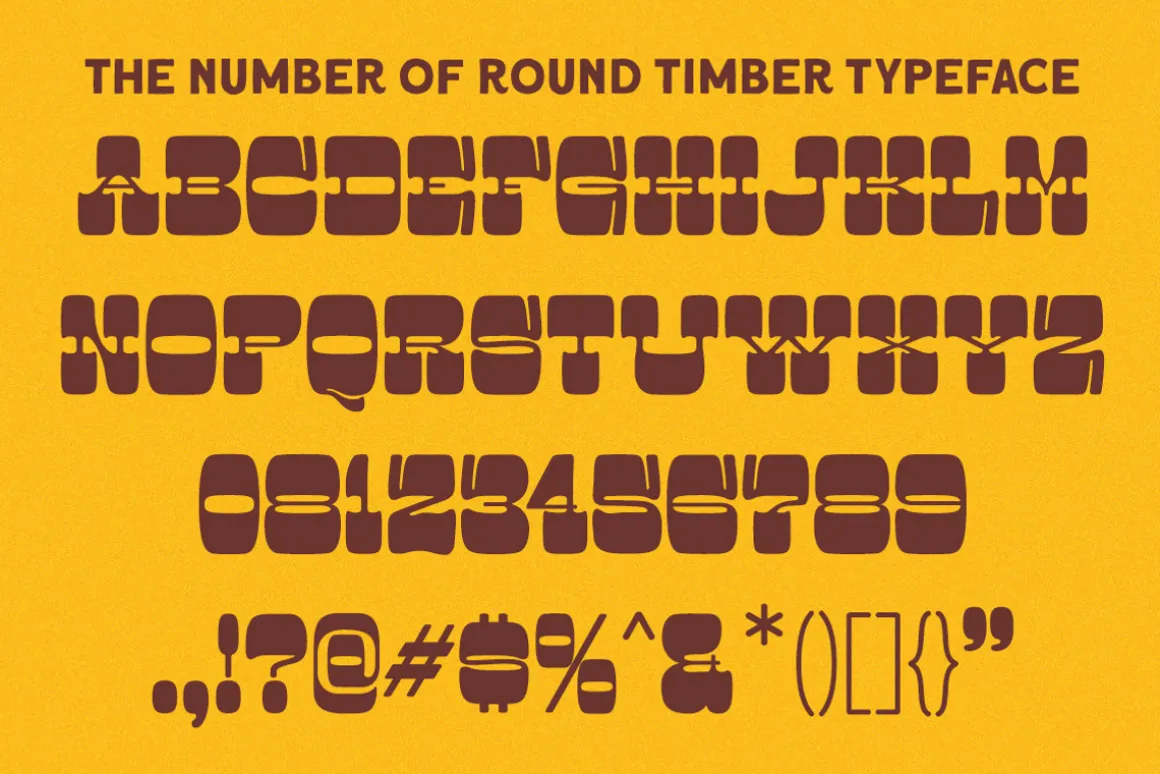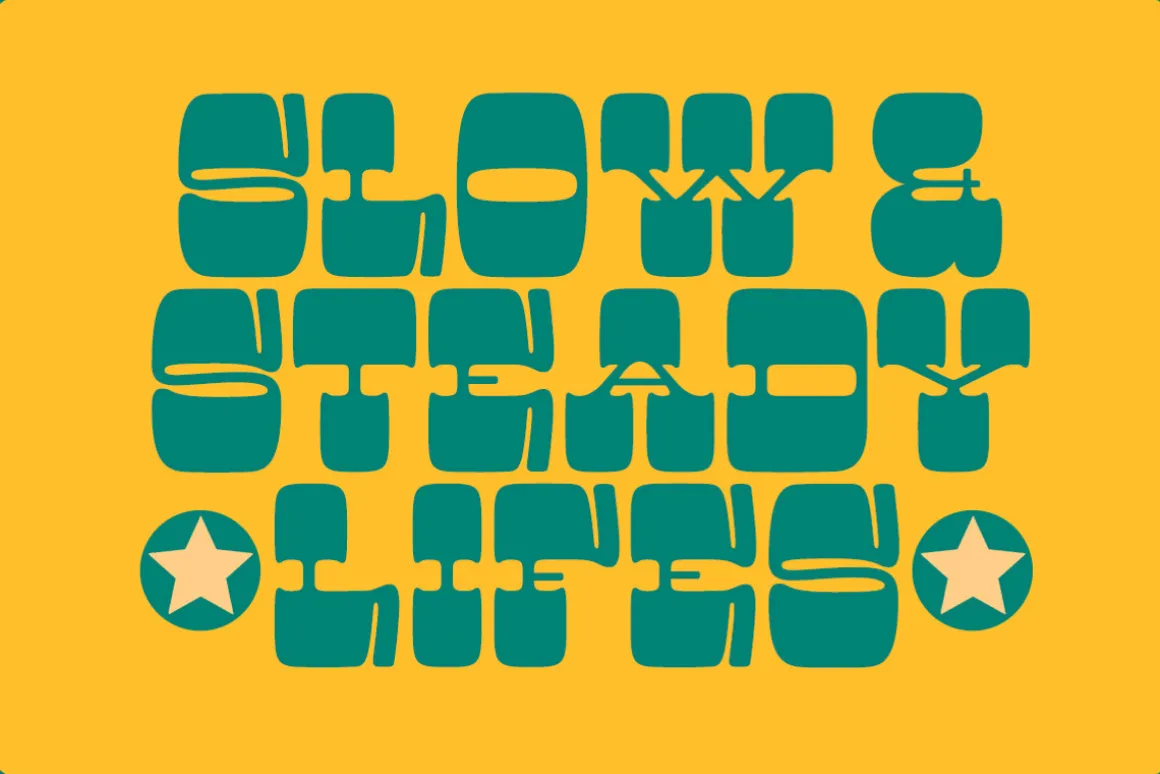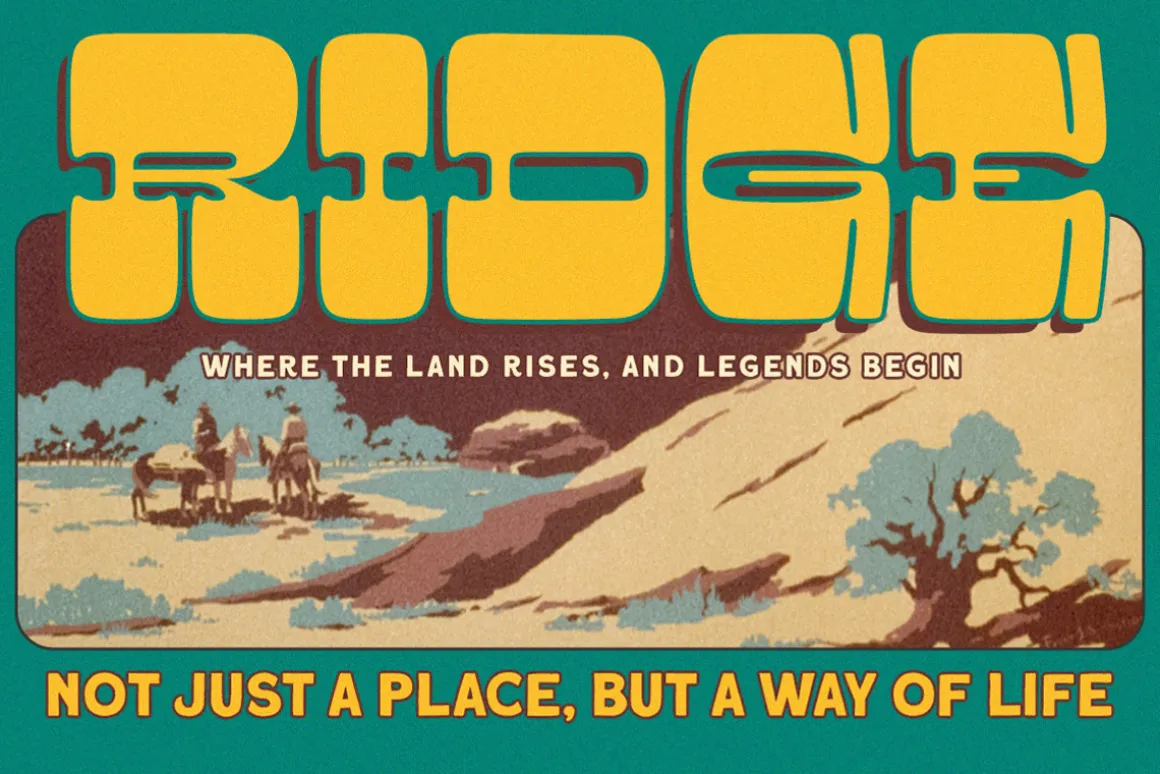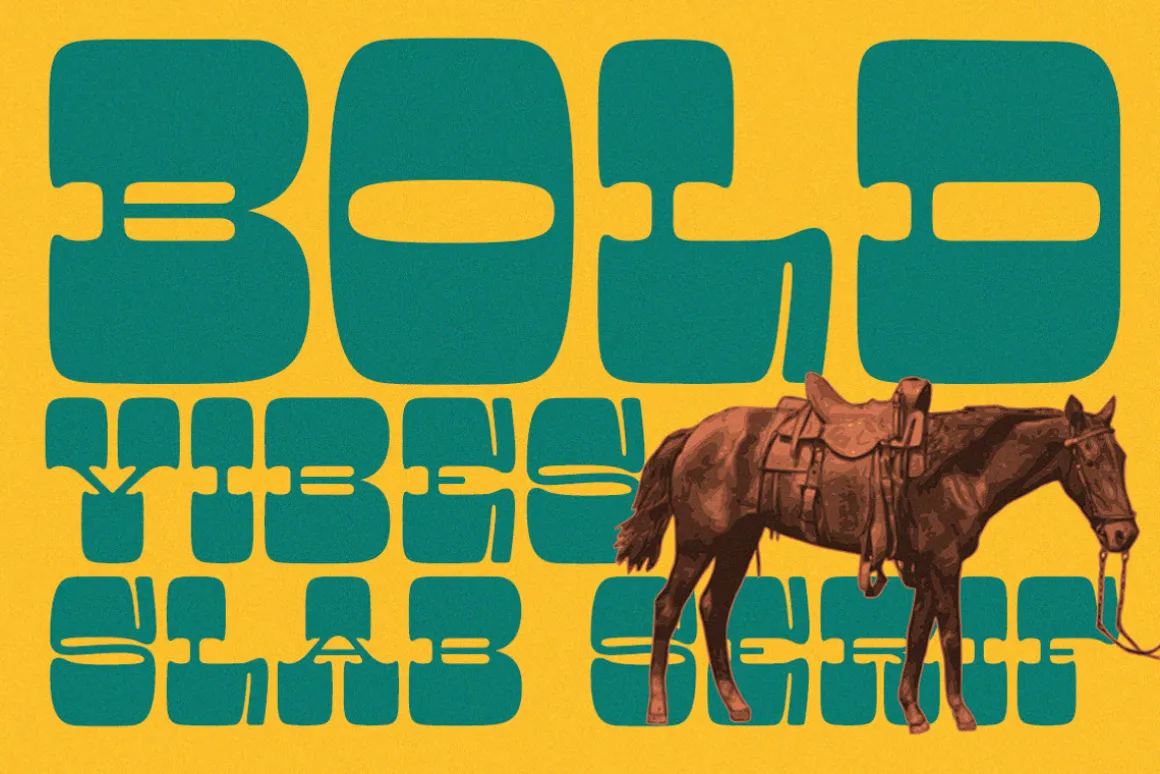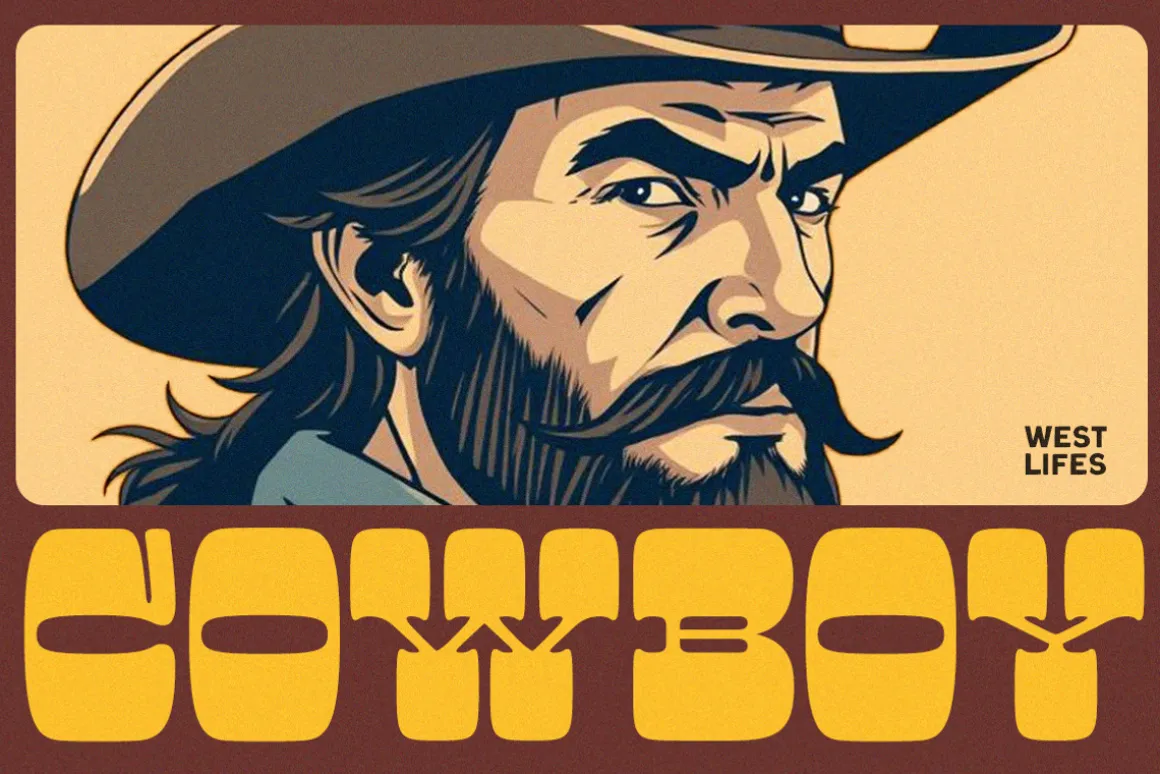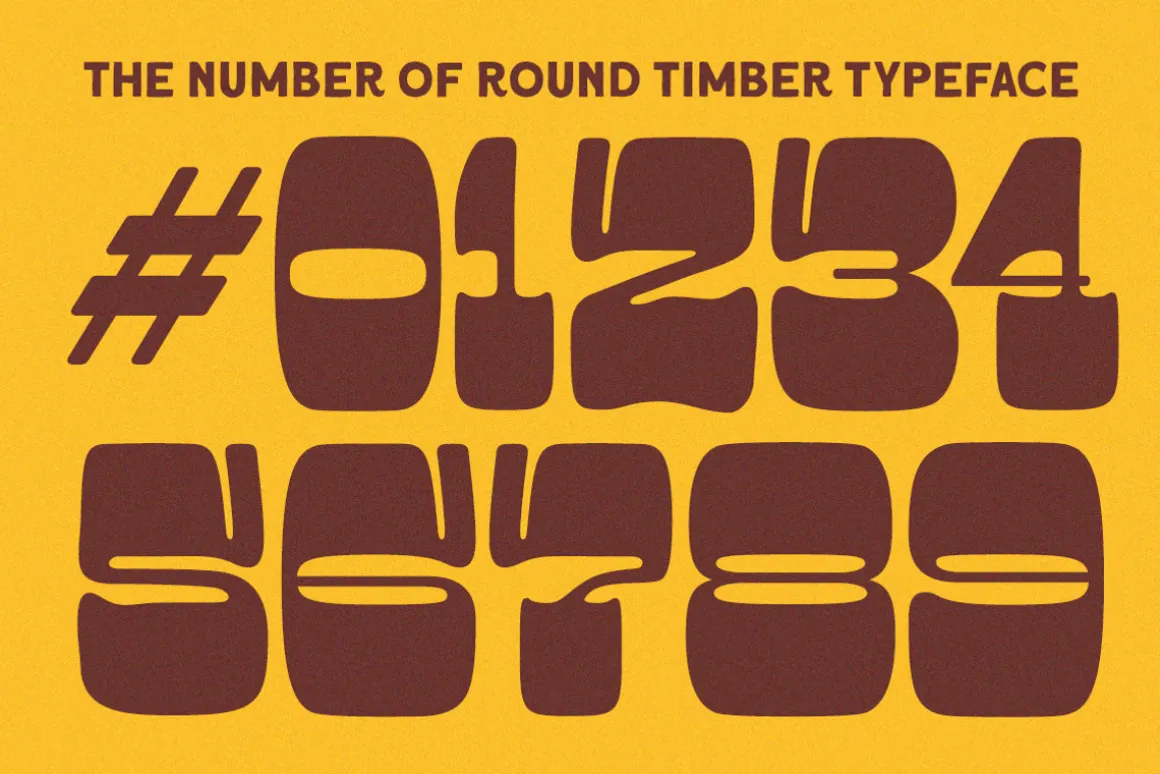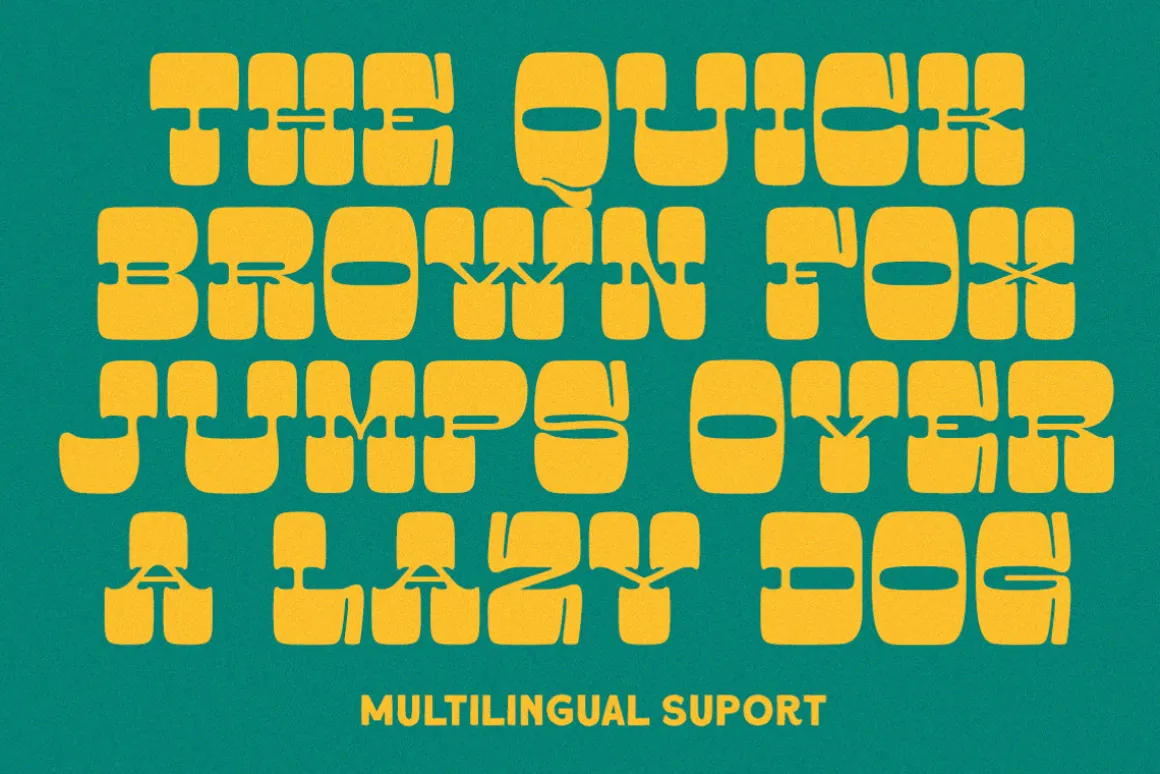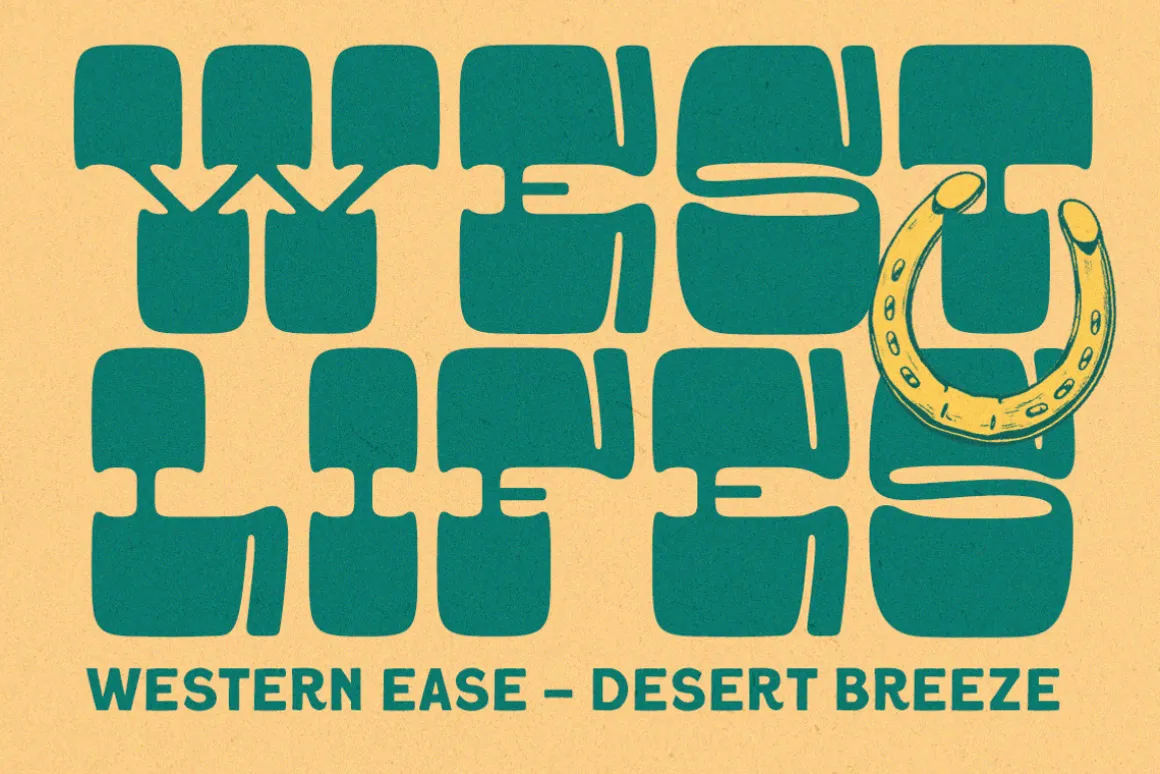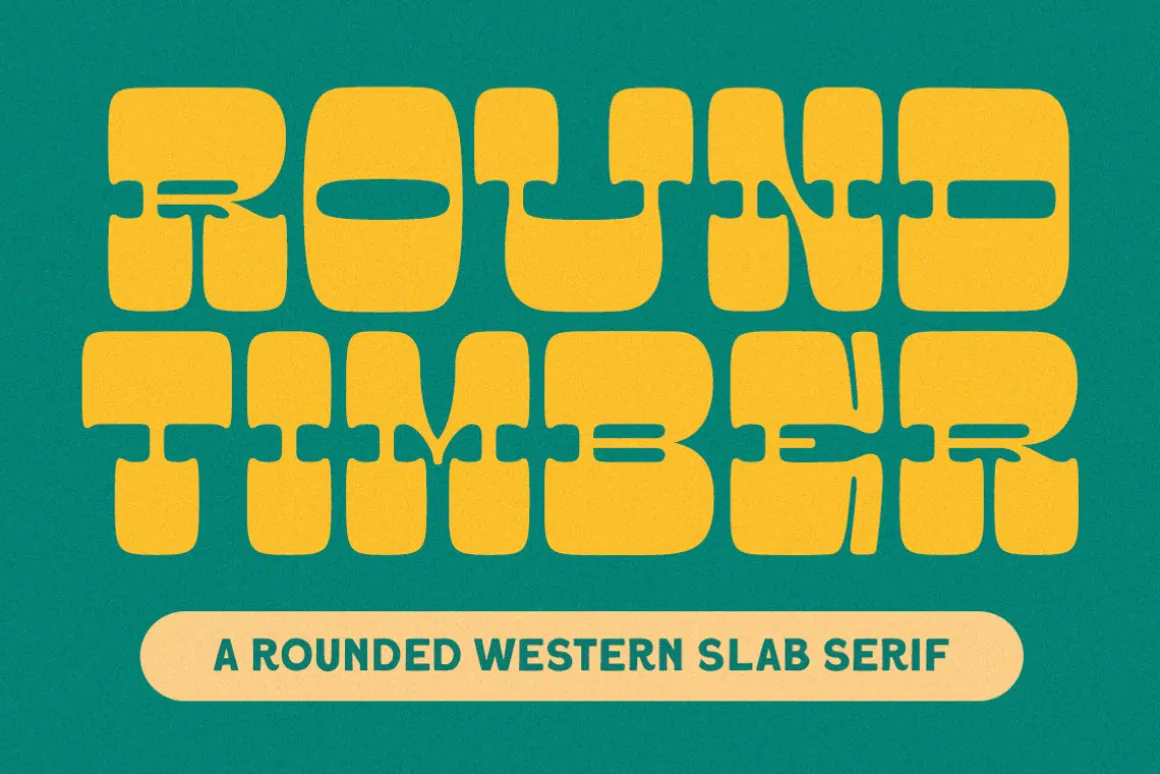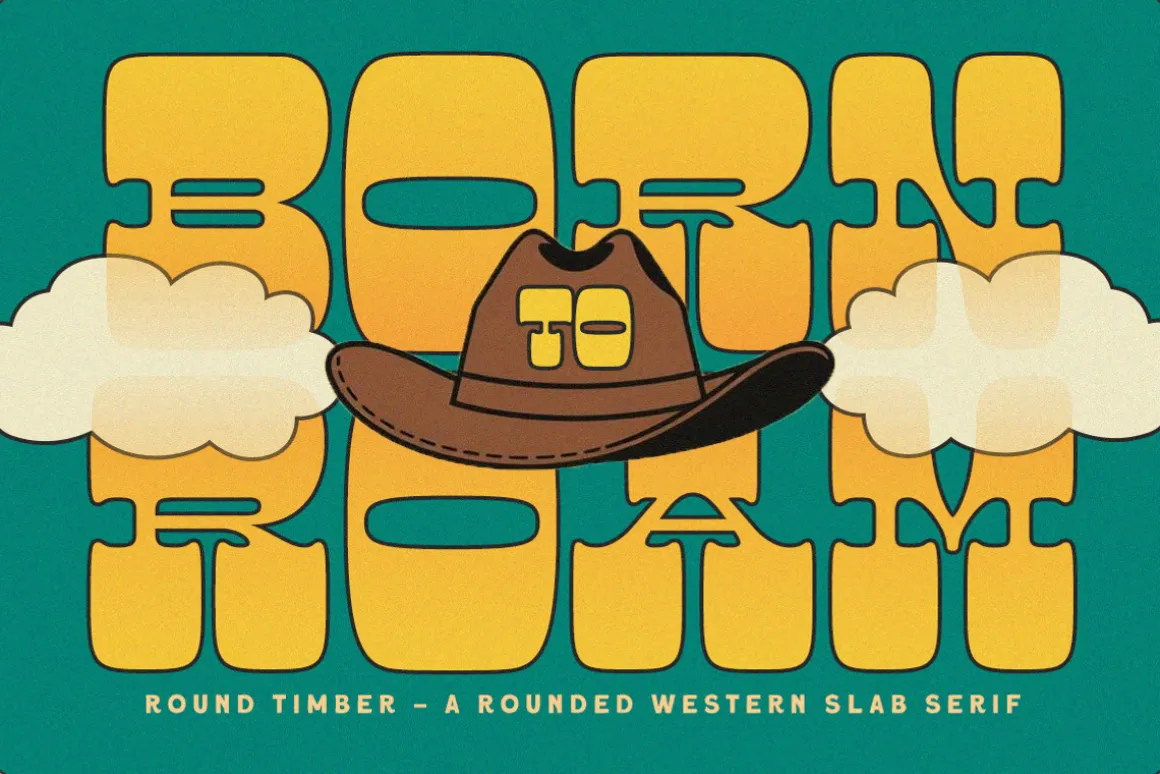
Round Timber is a bold and playful display font that blends vintage western charm with a modern rounded twist. Featuring chunky slab serifs and smooth, curvy edges, this typeface brings a quirky, retro energy to your designs. It’s perfect for branding, packaging, posters, and anything that needs a strong yet friendly presence. Whether you’re working on a throwback design or a standout logo, Round Timber delivers personality with every letter.
- Uppercase & lowercase
- Numbers and punctuation
- Alternates & Ligatures
- Multilingual Support